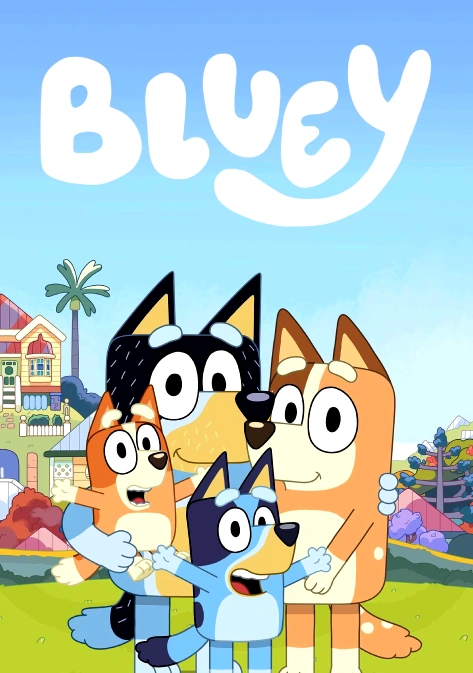
The font used in the logo of the popular Australian animated television series, Bluey, is custom-made and is often referred to as the “Bluey Font”. However, there are a few fonts that closely resemble it.
The most similar fonts to the Bluey logo are “Blueway” by Abu Hasnat, “Hello Headline” by font author Veneta and “Magic Sound“. These fonts offer a diverse range of glyphs and belong to delightful font families, allowing designers to create graphics, images, and designs that pay homage to the original logo’s lighthearted charm.
Blueway, a font by Abu Hasnat, is one such option. This free demo font is a close replica of the Bluey Font and can be purchased from the owner’s shop for commercial use. It offers a diverse range of glyphs and belongs to a delightful font family.
“Hello Headline” is a professional typeface that features colorful, rounded lettering. It is used in the official Bluey logo, which perfectly portrays the show’s playful spirit against a sunny backdrop.
“Magic Sound” is a handwritten font that has a fun and energetic vibe. It is most similar to the Bluey logo and can be used for various design projects such as invitations, flyers, cards, labels, etc.
Is this the exact font used for Bluey?
Not exactly. The original lettering was custom drawn or is not publicly licensed, so the fonts here are close recreations. BLUEY is the nearest match we have found.